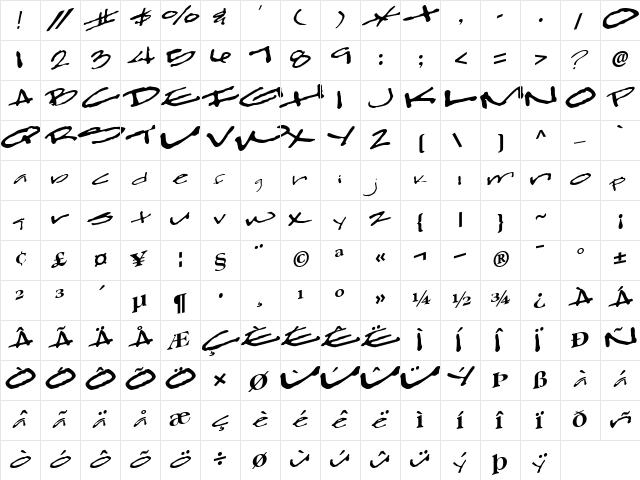
ClearFall54 Regular
Design Context for ClearFall54 Typeface
ClearFall54 is a composed and adaptable typeface that performs quietly and consistently across a wide range of design contexts.